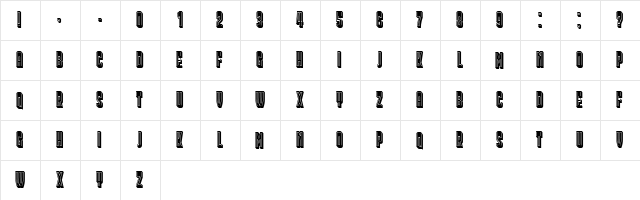
Businessman Regular
Design Context for Businessman Typeface
Businessman is a composed and adaptable typeface that performs quietly and consistently across a wide range of design contexts.